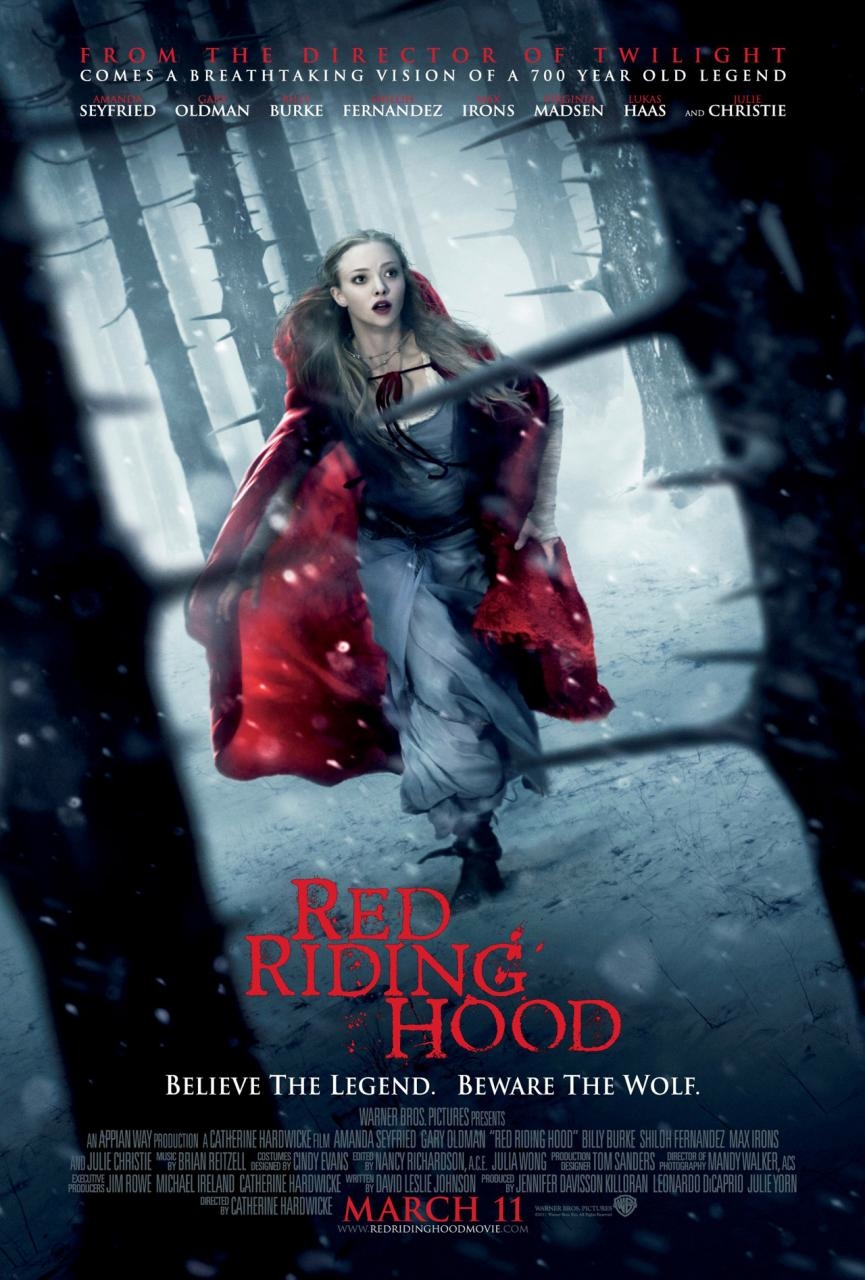
Red Riding Hood Font
FantasyRed Riding Hood is a 2011 dark fantasy film that is loosely based on the classic fairy tale. It follows a young girl who must confront a werewolf terrorizing her village while dealing with a love triangle and secrets within her own family.
The "Red Riding Hood" movie poster's title font is most likely Administer Ad Book, a transitional serif font developed by Castcraft Software Inc in 1990.